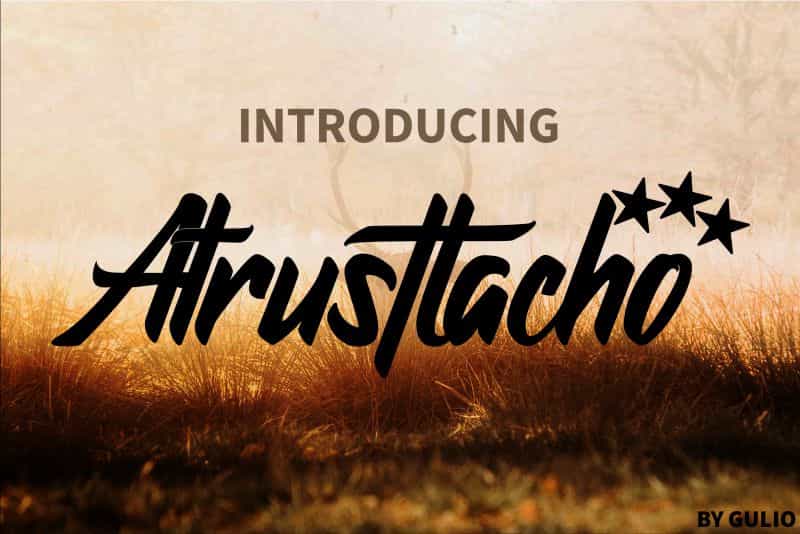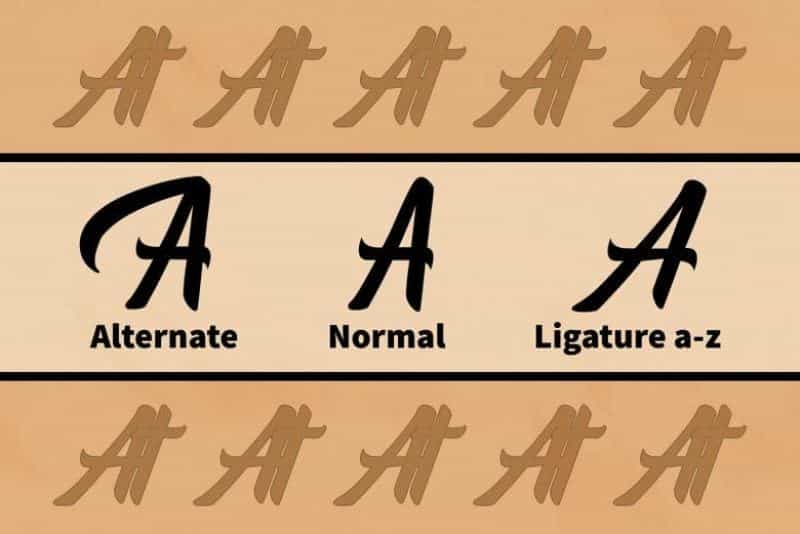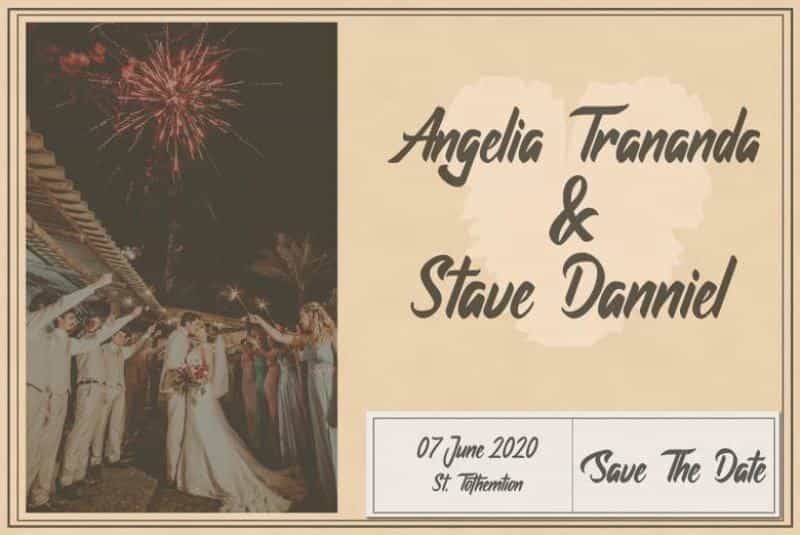
Atrusttacho is a touch font that maintains slant throughout thanks, to the ligatures made with lowercase a z. Ideal for logos, magazines, brochures, posters, clothing designs, web banners and various design projects like advertisements.